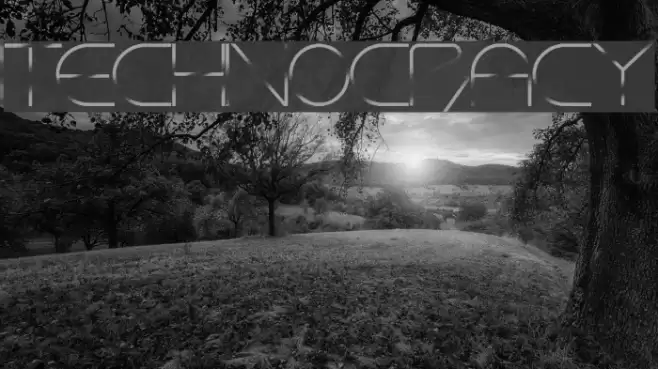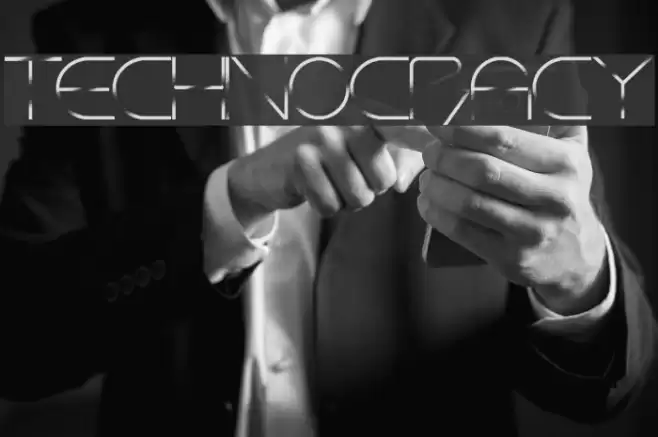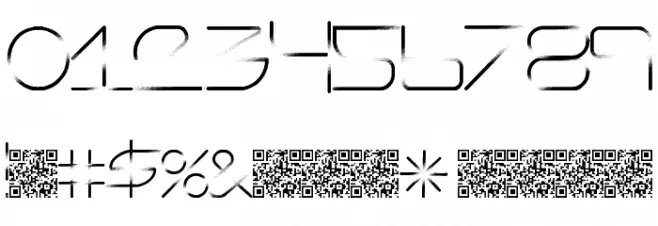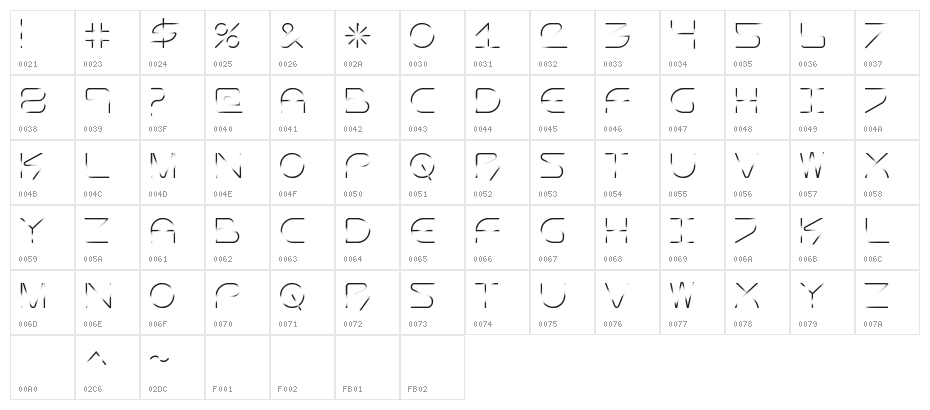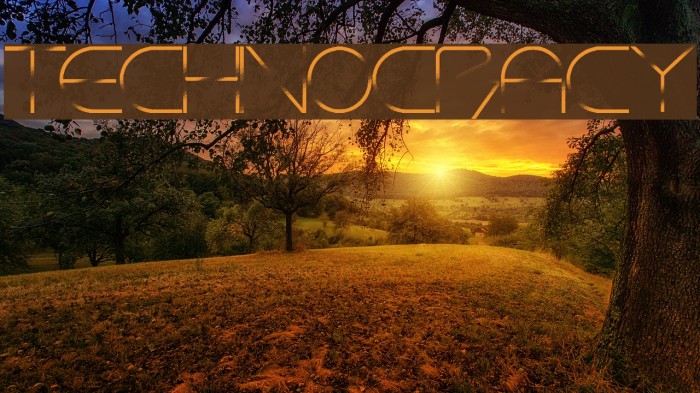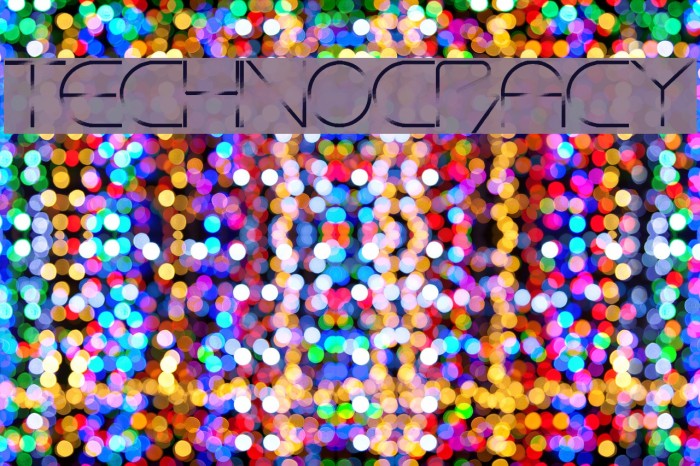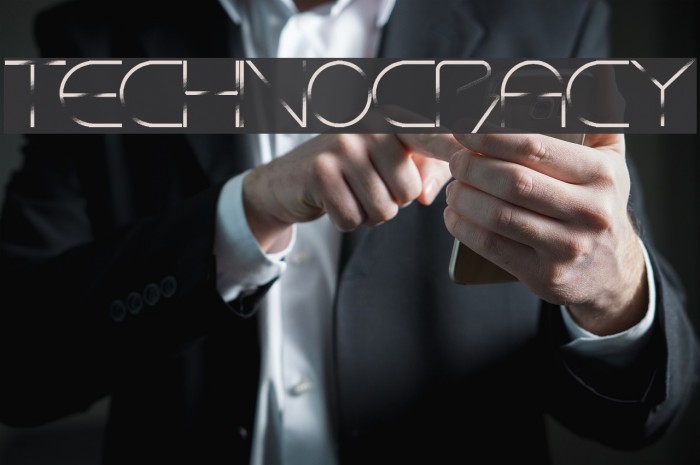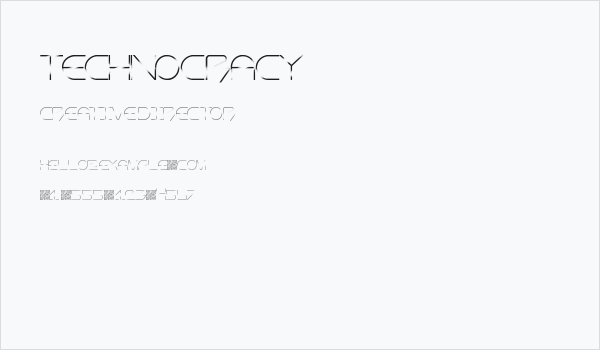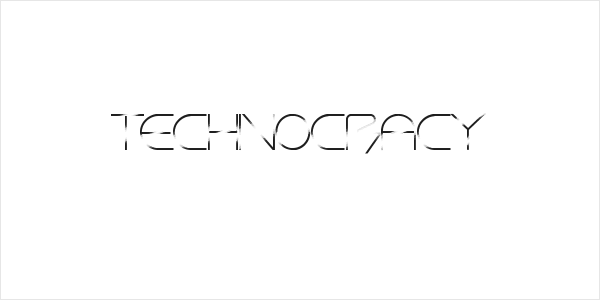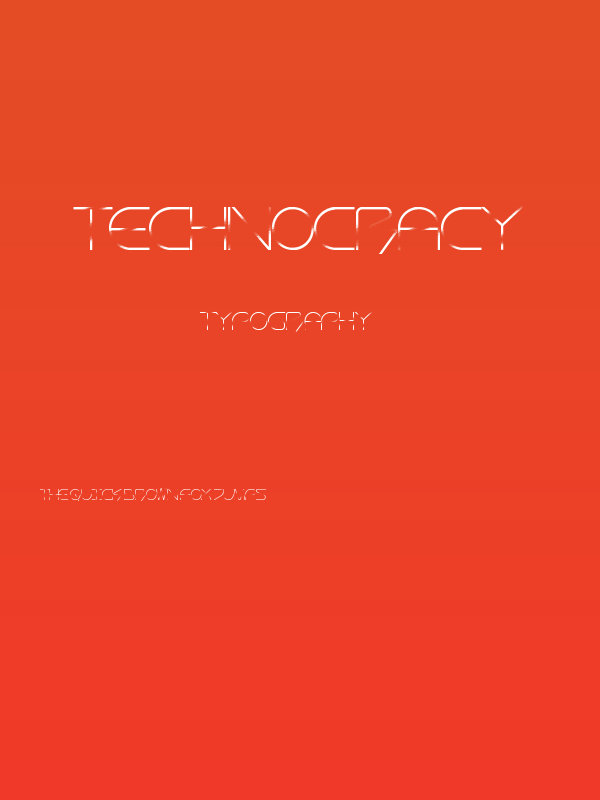
This font features a futuristic and geometric design, characterized by its sharp angles and clean lines. The letters are constructed with a stencil-like appearance, giving it a modern and industrial feel. The uppercase and lowercase characters maintain a consistent style, with a uniform width and height that enhances readability. The numerals and special characters follow the same design principles, ensuring a cohesive look across all text elements. The font's unique style makes it suitable for projects that require a contemporary and tech-inspired aesthetic.
A futuristic, geometric font with a stencil-like design from Uncategorized fonts.
- Proposed Projects: Ideal for technology branding, sci-fi themed projects, modern posters, and digital interfaces.